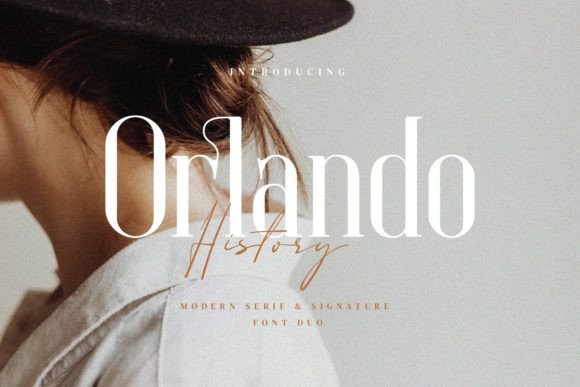
Introducing Orlando History Font, the best font for logo design in 2013, created by the talented Aqeel_Art. Orlando and History are classic and sophisticated fonts that will elevate your design to new heights of elegance and professionalism.
With their clean lines and perfectly weighted serifs, Orlando History Fonts exude timeless sophistication and create a sense of balance and harmony that will instantly catch the eye of any viewer. Whether you're designing a logo for a new business or revamping an existing one, these fonts are the perfect choice for conveying a sense of refinement and class.
One of the great things about Orlando History Fonts is their versatility. They're not just great for logos - they're also perfect for use in other branding materials like business cards, letterheads, and websites. And because the fonts are PUA encoded, you'll have easy access to all of the amazing glyphs and ligatures, making it easy to create a truly unique and eye-catching design.